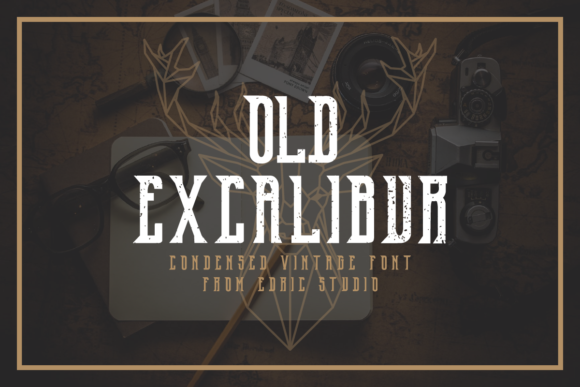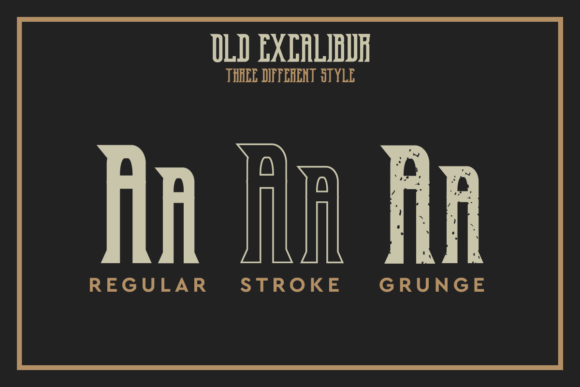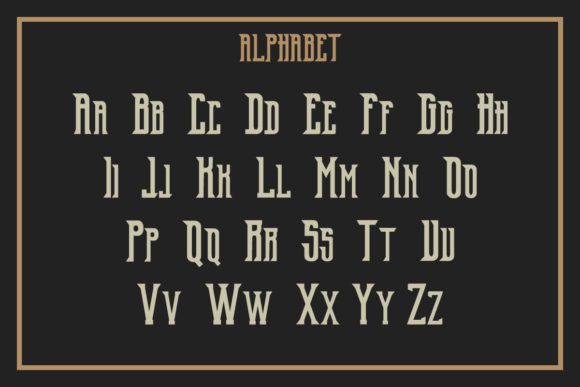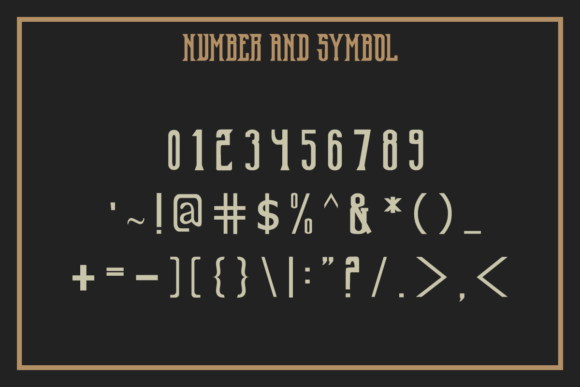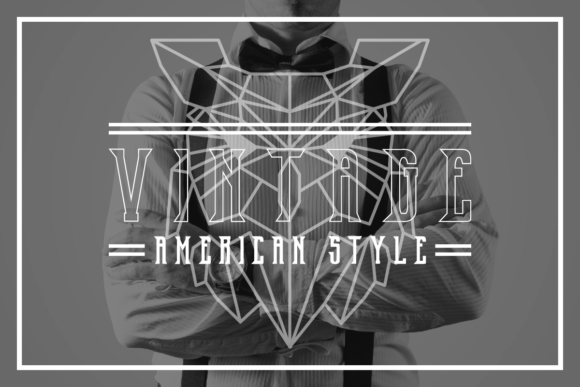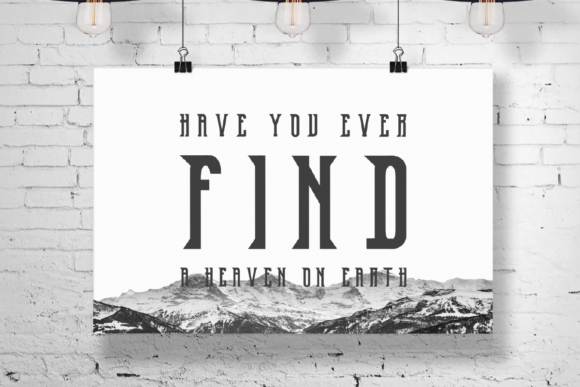
Introduction to Old Excalibur Font Font
Fonts play a crucial role in design, and the Old Excalibur Font font is a typeface that brings both character and versatility to any project. Whether you’re working on a branding project, a website, or a print design, the Old Excalibur Font font offers a unique style that can elevate your work.
Old Excalibur is a condensed vintage serif font with a bold feel.
It will turn any design project into a stand out .
Key Features of Old Excalibur Font Font
Why Choose Old Excalibur Font Font?
The Old Excalibur Font font is more than just a typeface – it’s a design tool that helps you communicate your message with style and clarity. Its unique character set and versatile design make it suitable for a wide range of applications, from elegant invitations to bold headlines.
With its carefully crafted letterforms and balanced proportions, the Old Excalibur Font font ensures readability and visual appeal across all mediums.
What makes Old Excalibur Font font special?
The Old Excalibur Font font stands out with its unique design, exceptional readability, and versatility across various design applications.